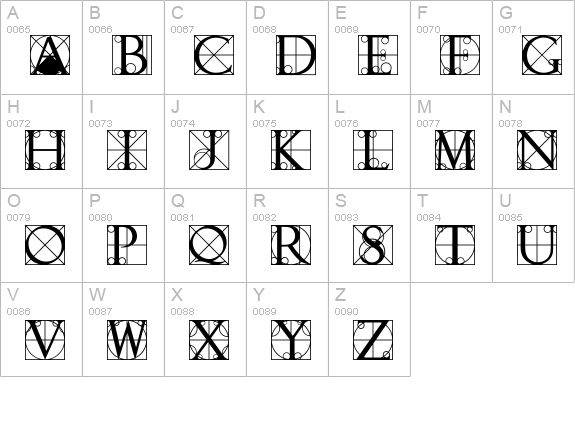
Walrod Initials Font Details
Introducing Walrod Initials, a truly captivating and exquisitely crafted font that effortlessly combines elegance, sophistication, and a touch of vintage charm. This font is a testament to the artistry of typographic design, with its intricate details and graceful curves. Walrod Initials is reminiscent of a bygone era, evoking a sense of nostalgia while remaining timeless. It exudes an air of refined beauty, making it the perfect choice for any project that requires a touch of class and distinction. Not only does Walrod Initials possess an unparalleled aesthetic appeal, but it also offers unparalleled convenience. This font is available to download for free at FontsMarket.com, allowing you to effortlessly add a touch of elegance to your designs without breaking the bank. Whether you're working on a wedding invitation, a logo design, or a branding project, Walrod Initials will elevate your work to new heights. Its intricate swirls and delicate lines will captivate your audience, leaving a lasting impression. Embrace the beauty of Walrod Initials and let your creativity soar. Download this stunning font today at FontsMarket.com and unlock a world of endless possibilities.